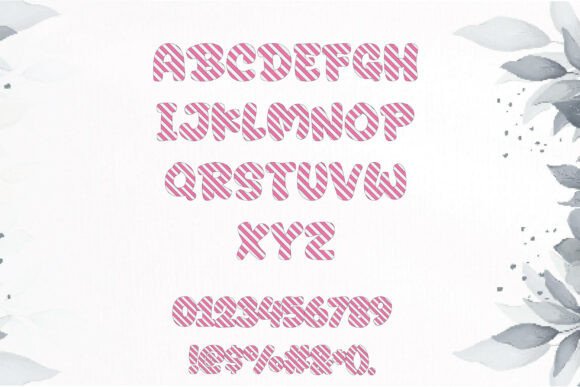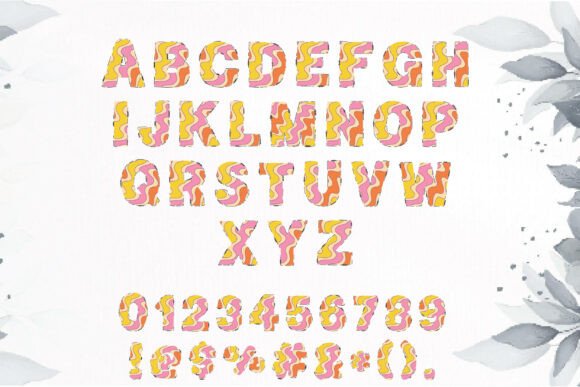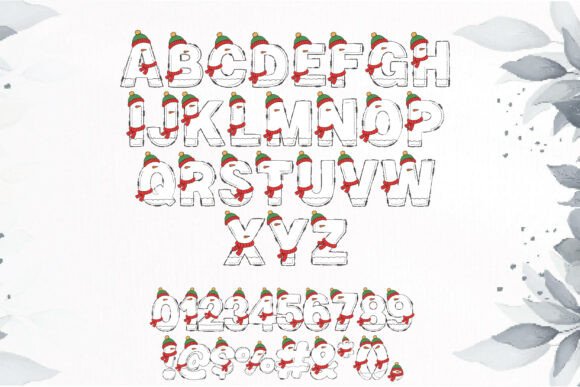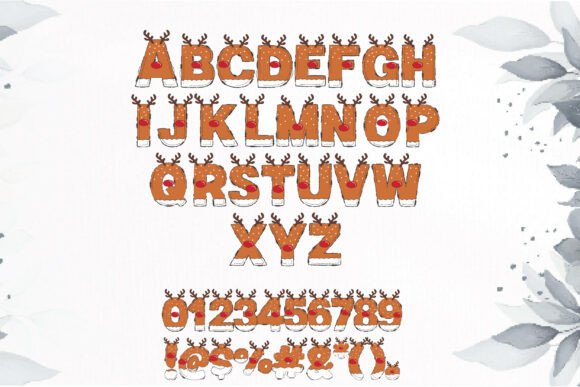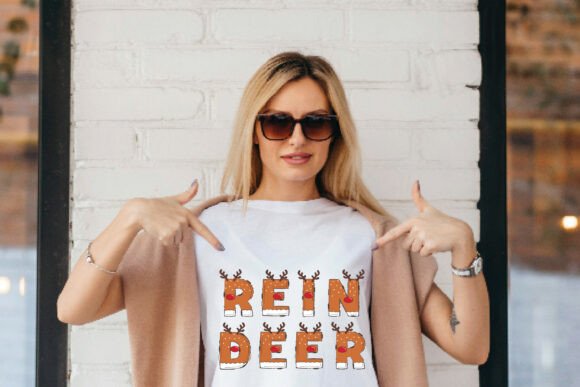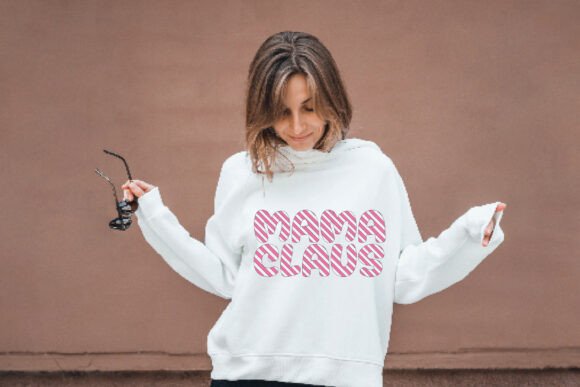
Get Ready to Deck the Halls with Christmas Joy
As you sit down to plan this year’s holiday cards and decorations, a spark of creativity strikes. You envision the perfect design – festive, fun, and full of holiday cheer. But, where do you start? That’s where the Christmas Font comes in – a must-have bundle of four unique alphabet styles that will make your designs shine.
With the Christmas Font, you can create stunning holiday designs that go beyond the ordinary. This bundle is perfect for designers looking to add a professional touch to their projects, from custom Christmas cards and gift tags to invitations, posters, and digital design projects. Its versatility and ease of use make it a valuable tool for anyone looking to spread holiday joy through their designs.
Key Features of Christmas Font
- Unique Characteristics: Features a festive and playful design, perfect for holiday-themed projects, with intricate details and ornaments
Designer Review: Christmas Font
I recently had the chance to work with the “Christmas Font” and I’m sharing my honest thoughts on its performance.
- The font’s festive design is perfect for holiday-themed projects, making it a great addition to any Christmas or winter project.
- The font is highly customizable, allowing users to adjust font sizes, colors, and styles to fit their specific needs.
- The font is also quite versatile, working well for both digital and print projects.
- The font is limited to Christmas and winter-themed projects, which may not be suitable for year-round use.
- The font’s design may not be to everyone’s taste, as it’s quite festive and may be overwhelming for some users.
- The font’s customization options can be overwhelming for beginners, which may lead to user frustration.
Overall, the “Christmas Font” is a great addition to any designer’s toolkit, but it’s essential to consider its limitations before using it for a project. If you’re looking for a fun and festive font for a holiday-themed project, this is a great choice. However, if you’re looking for a more versatile font, you may want to consider other options.
Getting the Most Out of Christmas Font
To get the most out of Christmas Font, use it in conjunction with festive graphics and colors. Apply it to headings and titles to add a touch of holiday cheer to your designs.
Christmas Font is commonly used for:
- Holiday card designs
- Gift tag templates
- Christmas party invitations
- New Year’s Eve countdown graphics